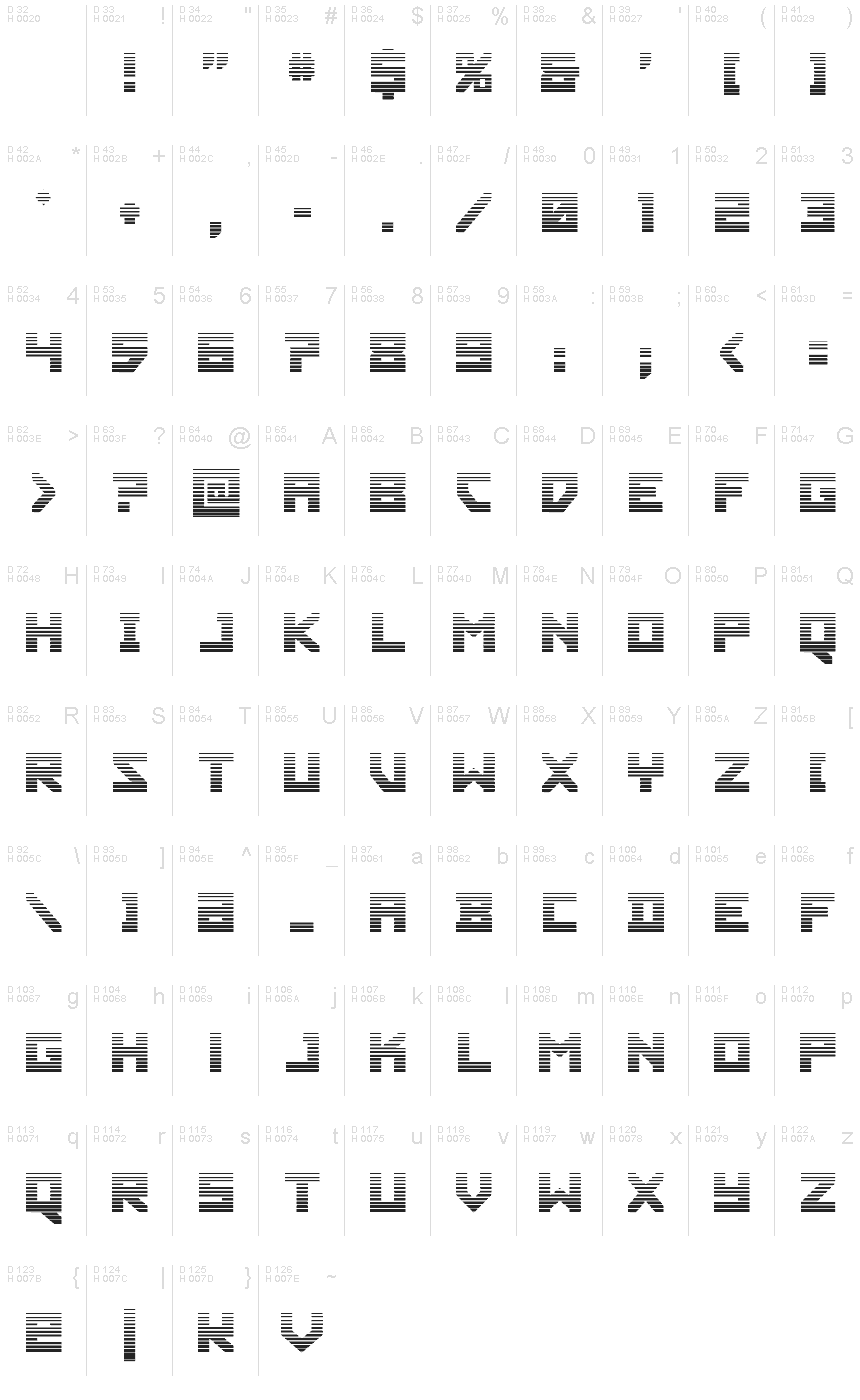
Hibernal Sentry Gradient
Hibernal Sentry is a trendy tech display font from Iconian Fonts. This typeface with its sharp angular lines makes any headline look stylish, even if it’s just one word.
Hibernal Sentry gradient is a variation that has a black and white gradient that goes from top to bottom making for a visually striking font that has a retro futuristic feel that can be used for a variety of things like web design projects, print designs, logotypes, posters, packaging designs, advertisements, etc.